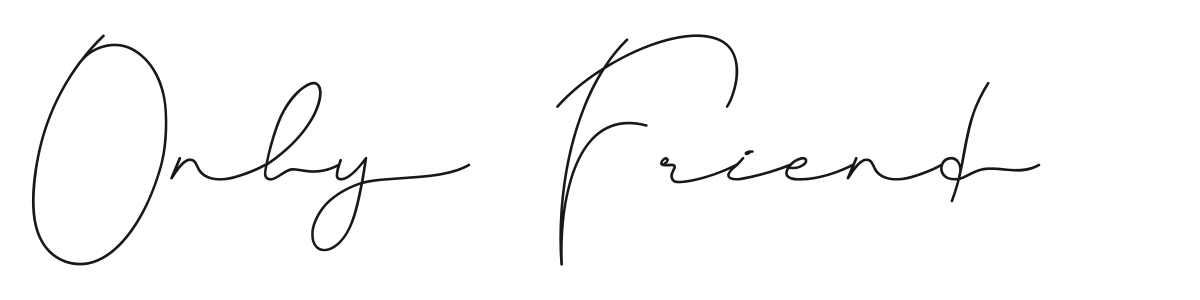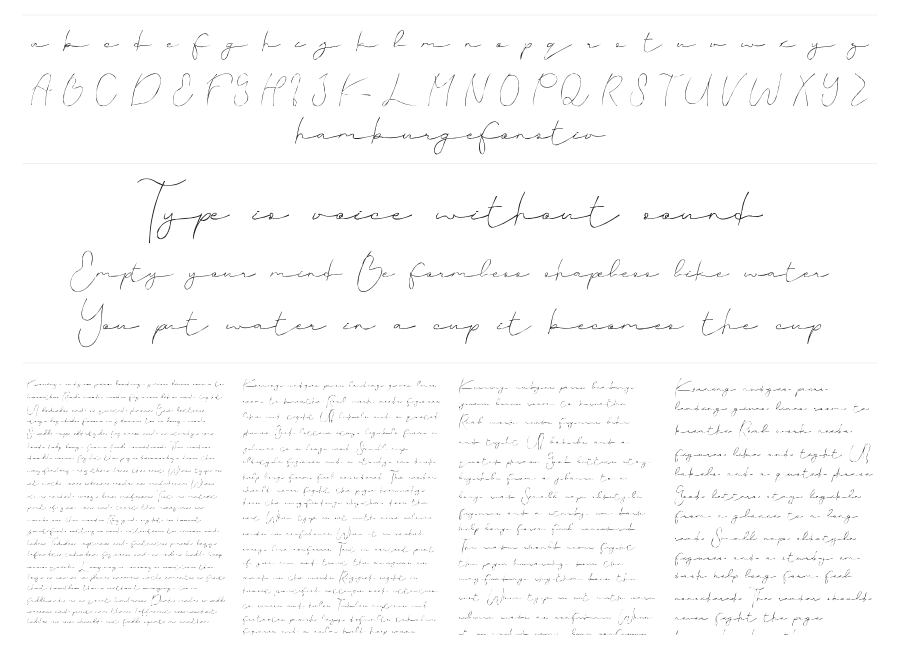
Only Friend
Only Friend is a flowing signature script drawn as a single continuous fine-line stroke, evoking the look of handwriting dashed off with a rollerball pen. Its generous loops and long horizontal sweeps give it an airy, unhurried elegance that feels personal rather than formal. The ultra-thin monoweight construction keeps it light and approachable across logos, wedding stationery, and lifestyle branding.